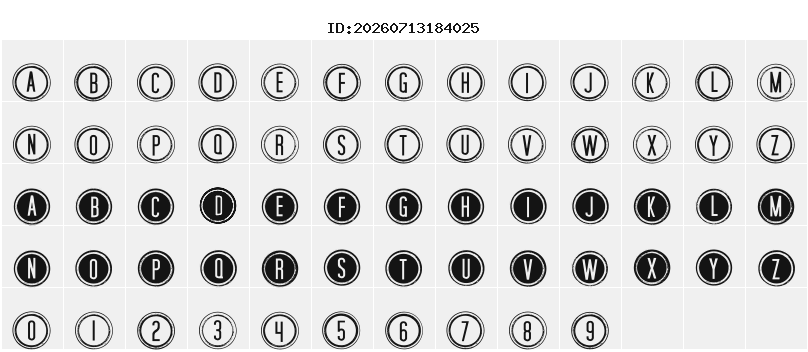
Backspacer Tribute To Pearl Jam Preview
• Font Name: Backspacer Tribute To Pearl Jam
• Full Font Name: Backspacer Tribute To Pearl Jam
• Version: Version Pearl Jam 20,Gersan Borge, Noviembre 20, 2011, GERZAN BORGE triton company
About Backspacer Tribute To Pearl Jam.ttf
Backspacer Tribute To Pearl Jam.ttf is a modern, elegant sans-serif font designed for ultimate readability and visual harmony. Perfect for branding, headlines, web design, and print materials.